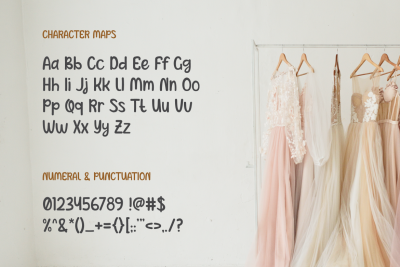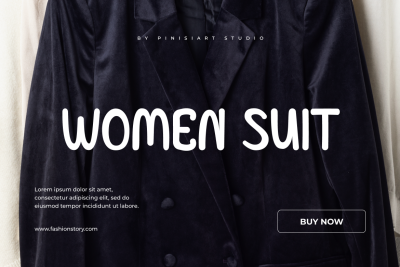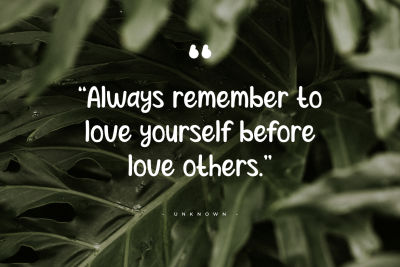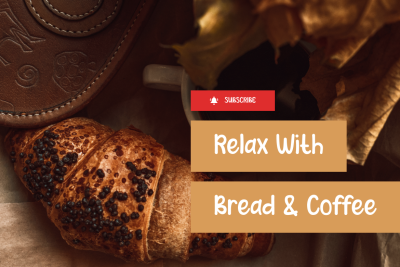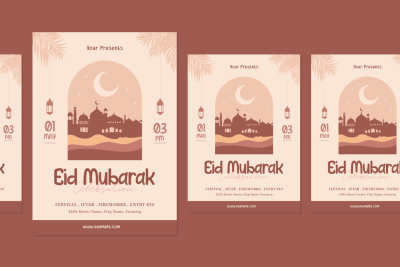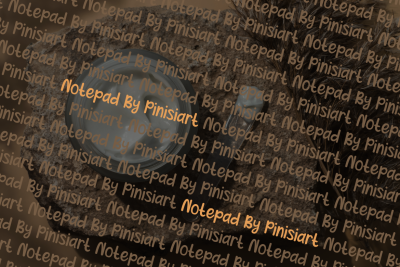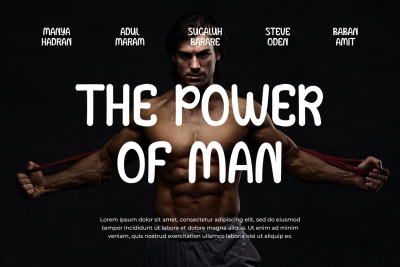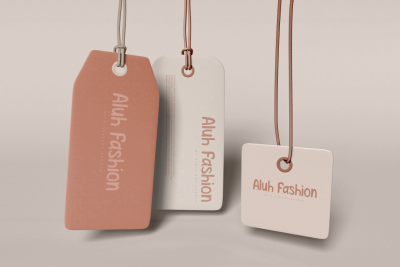
Cute Font Notepad is a soft, playful, and charming typeface that adds personality and warmth to any design project. Featuring rounded, hand-drawn letterforms with gentle curves, this font exudes an approachable and friendly vibe. Its clean and girly aesthetic blends simplicity with elegance, making it ideal for both modern and rustic design themes. Whether youโre working on branding, personal projects, or professional designs, Cute Font Notepad brings a unique balance of fun and readability.
The handwritten style of this font gives it a delightful and personal touch. Its whimsical yet structured appearance ensures it stands out while maintaining clarity and balance. The fontโs subtle playfulness makes it perfect for designs that require a casual yet polished look. Paired with soft pastel colors, floral elements, or minimalist layouts, it creates eye-catching and harmonious visuals. From headings to decorative text, this typeface adapts seamlessly to a variety of uses, delivering style and charm.
What sets Cute Font Notepad apart is its versatility. Itโs ideal for projects that emphasize warmth, creativity, and a personal touch. Whether youโre creating designs for social media, physical products, or digital materials, this font can elevate the overall look. Its balance between formality and whimsy ensures that your message remains both professional and inviting.
Notepad is perfect for a wide range of audiences, from creatives to small business owners and educators. Lifestyle bloggers and influencers will find it especially useful for crafting logos, Instagram posts, and Pinterest graphics. Its elegant and approachable vibe aligns beautifully with branding for personal blogs, boutique businesses, or handmade products. With its soft, feminine appeal, it enhances any digital or physical design.
Educators and parents will also love the playful and friendly nature of Cute Font Notepad. Itโs perfect for designing classroom materials such as posters, flashcards, or activity sheets. Parents can use it to create personalized projects like birthday invitations, family scrapbooks, or chore charts. The fontโs casual yet stylish look keeps designs fun and engaging for kids while maintaining clarity and readability.
For small businesses in womenโs fashion, beauty, or lifestyle industries, this font is a fantastic choice. It works beautifully for product packaging, labels, or promotional materials. Boutique businesses and stationery brands can use it to design planners, calendars, and journals with a polished yet charming aesthetic. Notepad is a great fit for brands targeting a female audience or focusing on family-friendly themes.
In summary, Cute Font Notepad is a versatile typeface that adds charm, warmth, and personality to any project. Whether youโre designing for personal use or professional branding, this font offers the flexibility and appeal needed to create standout designs. Itโs an excellent choice for anyone looking to enhance their work with a touch of creativity and charm.